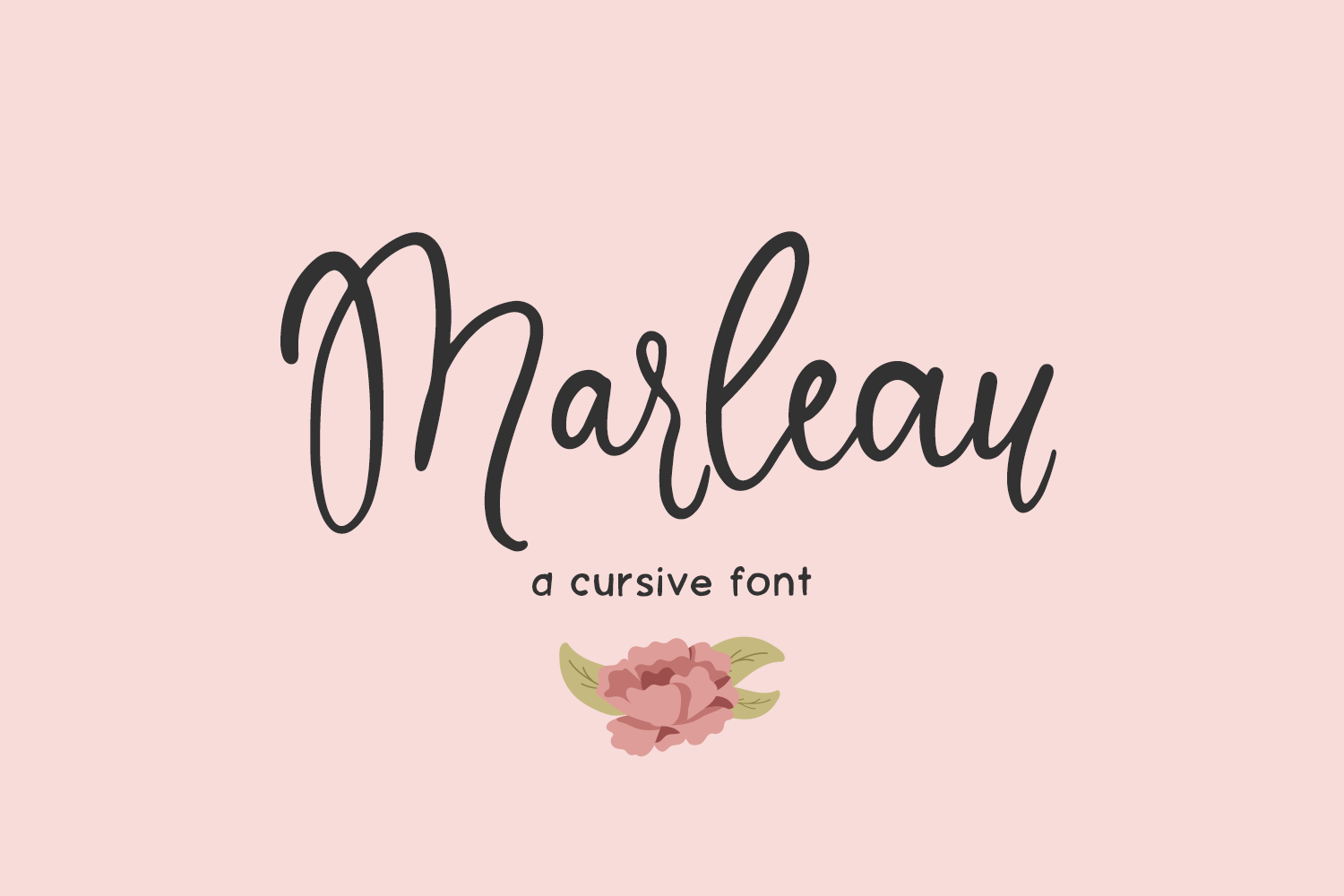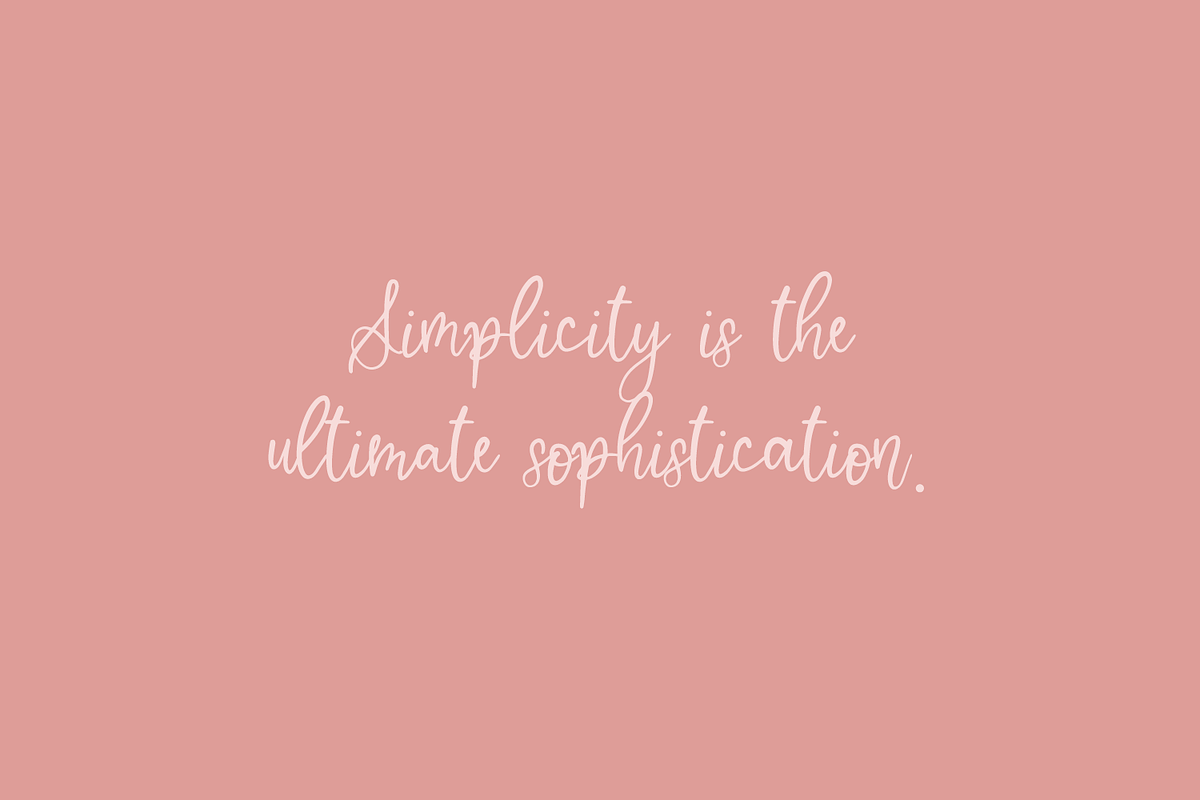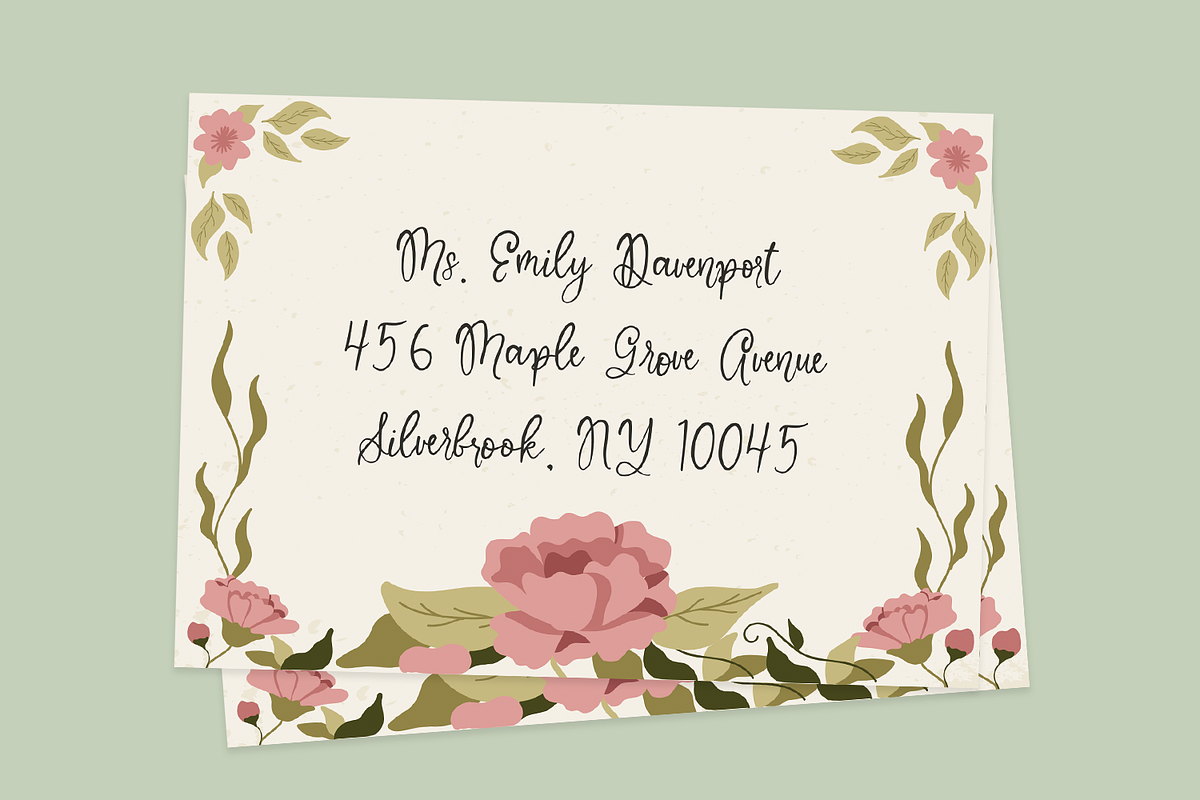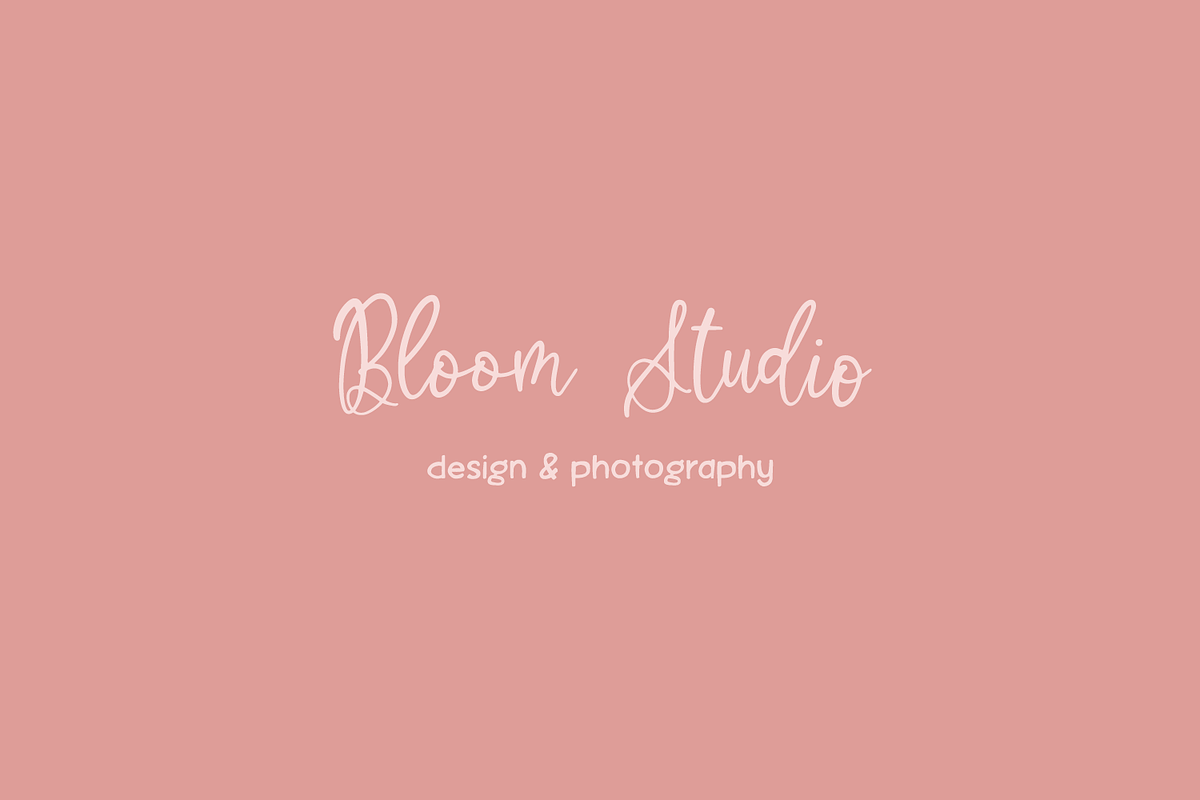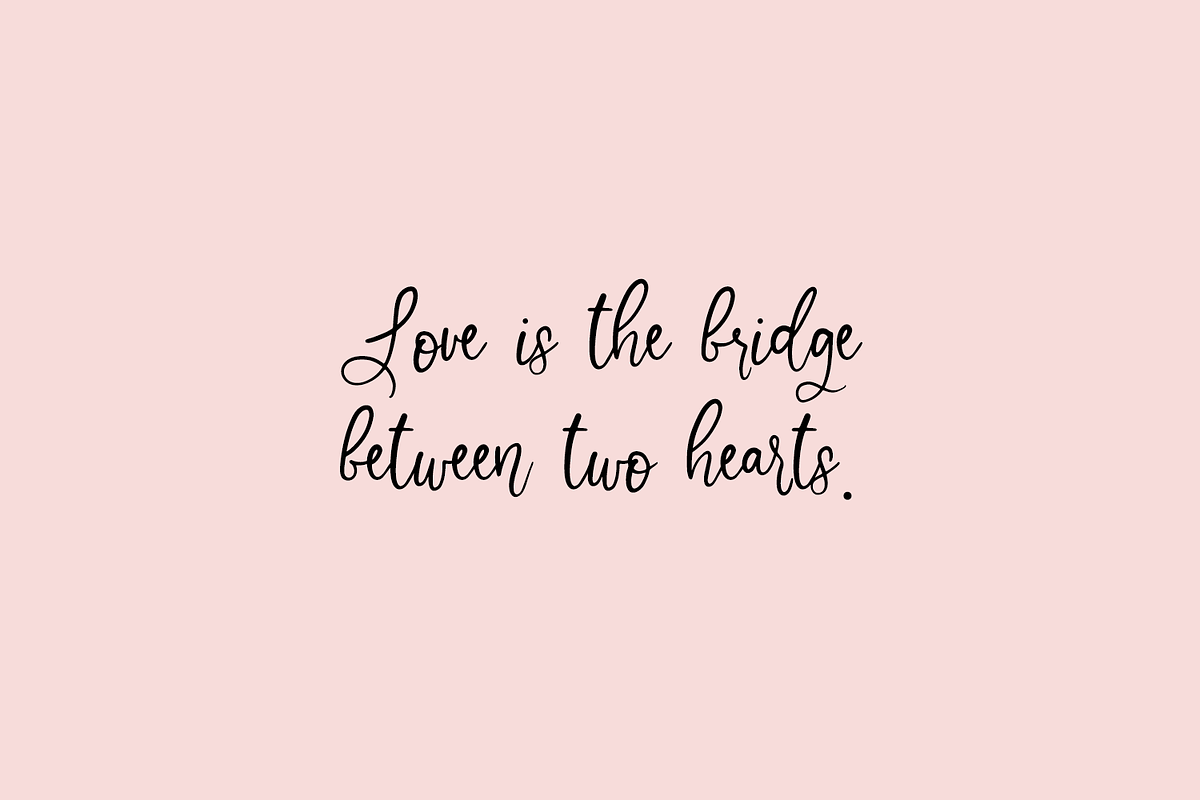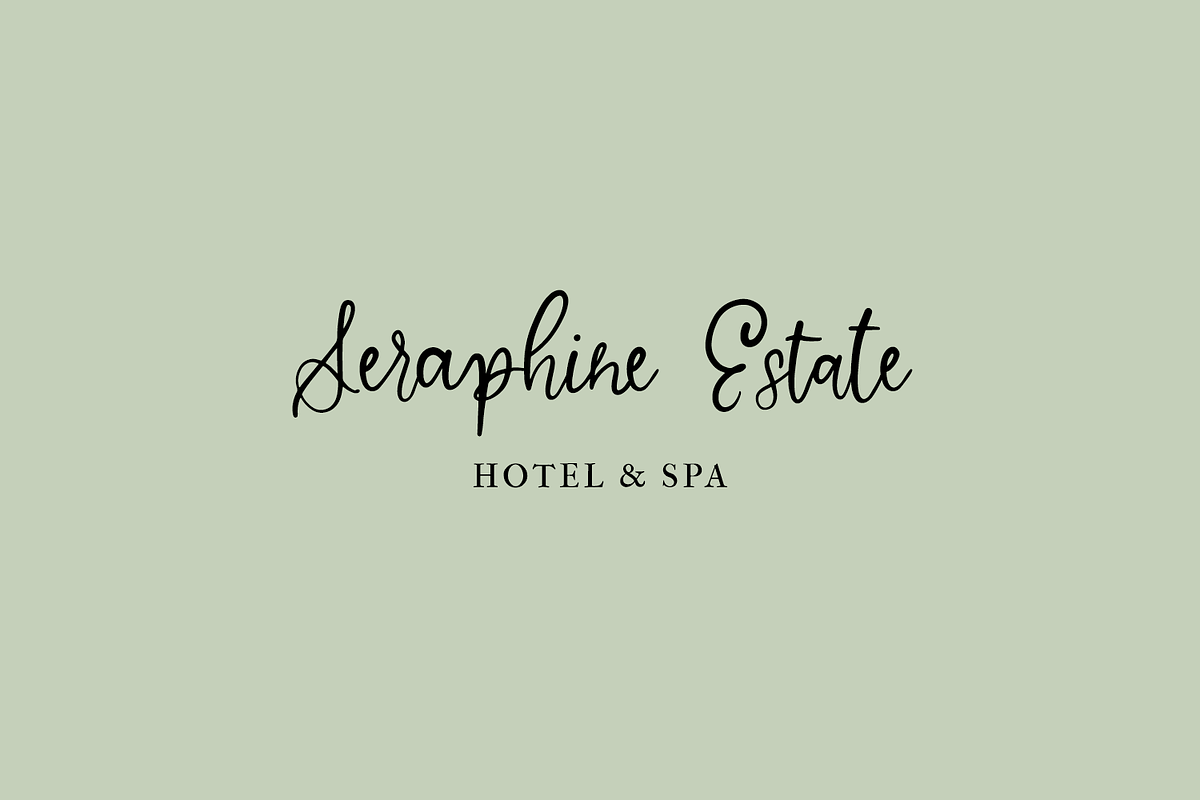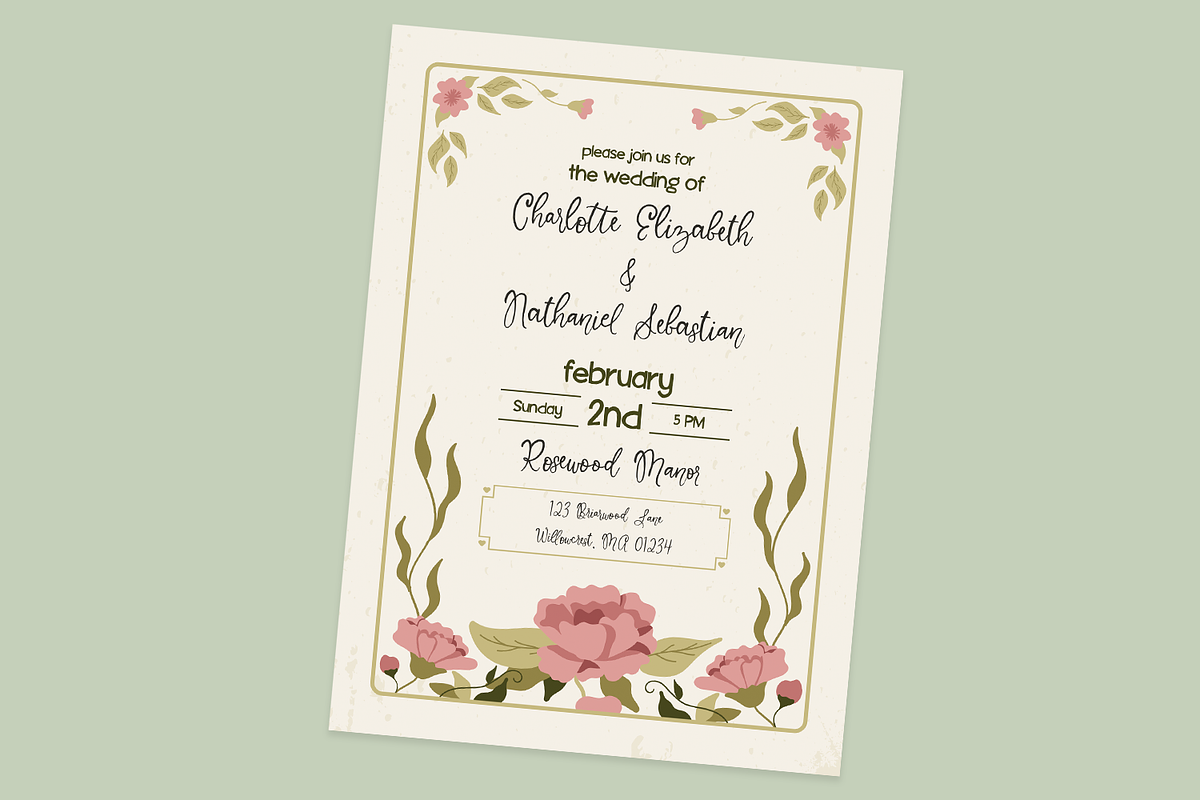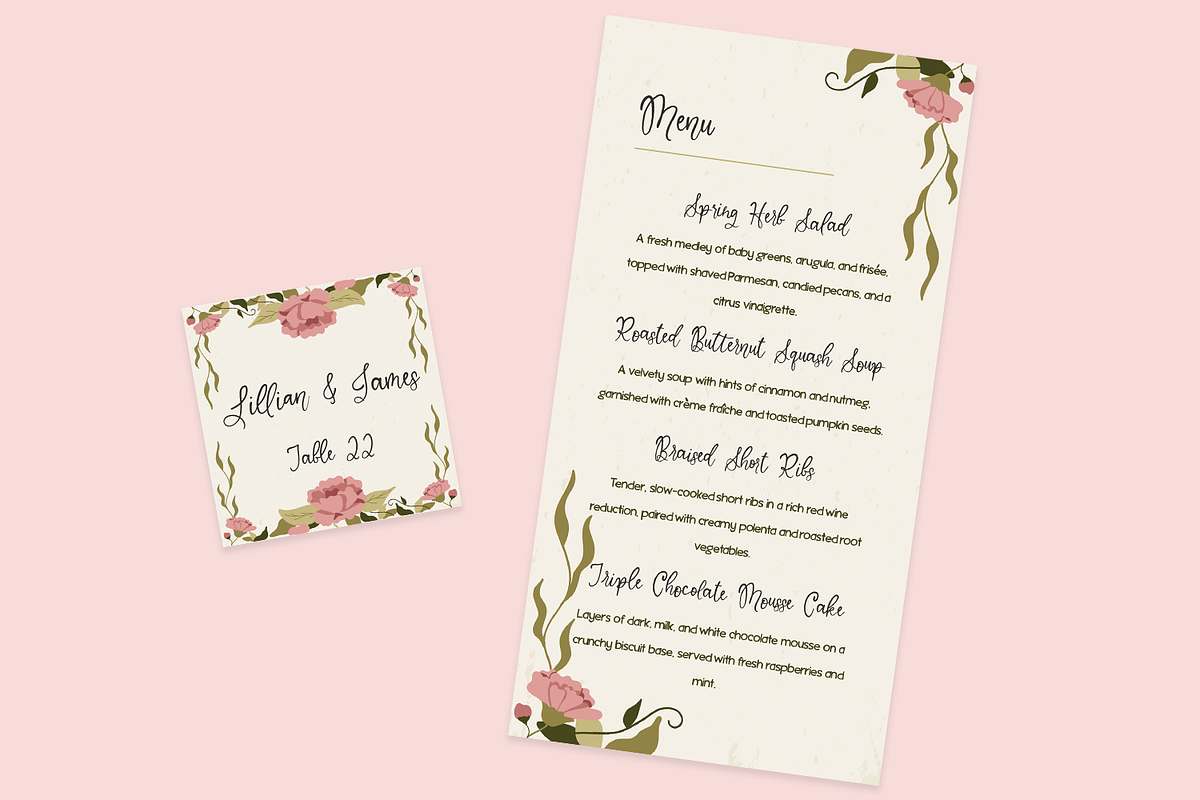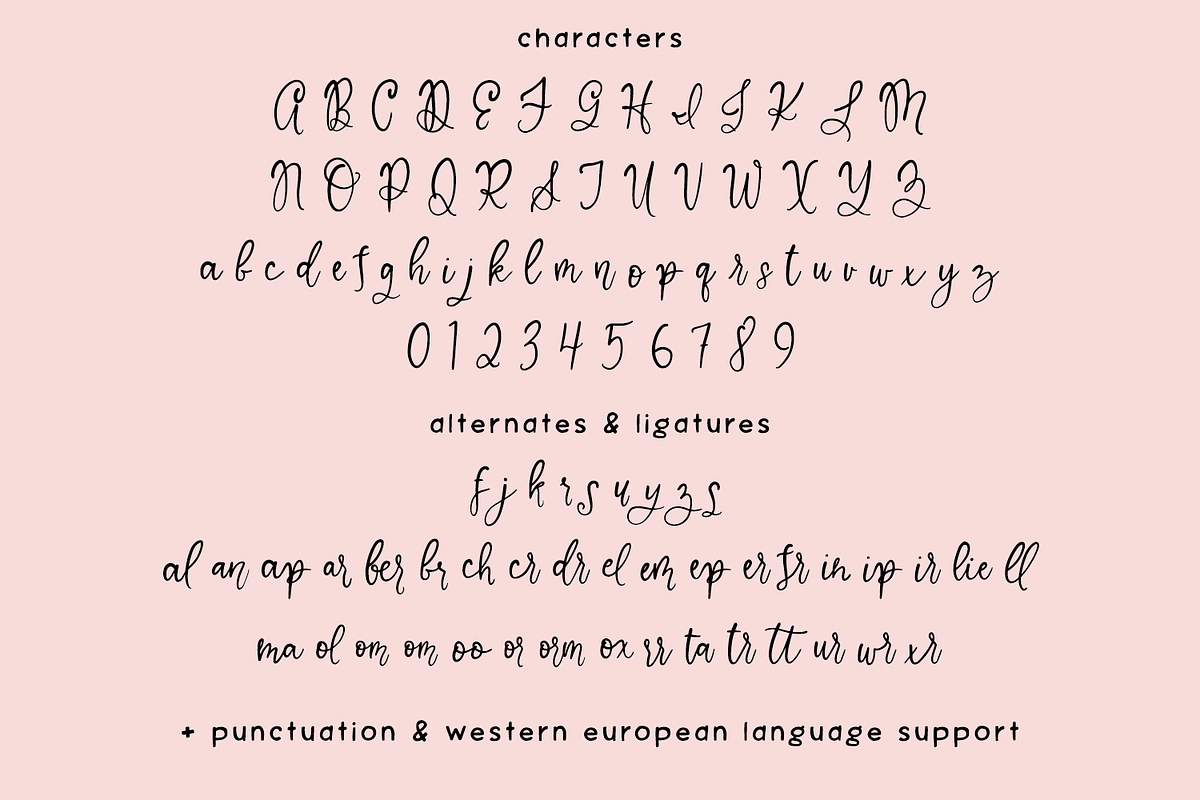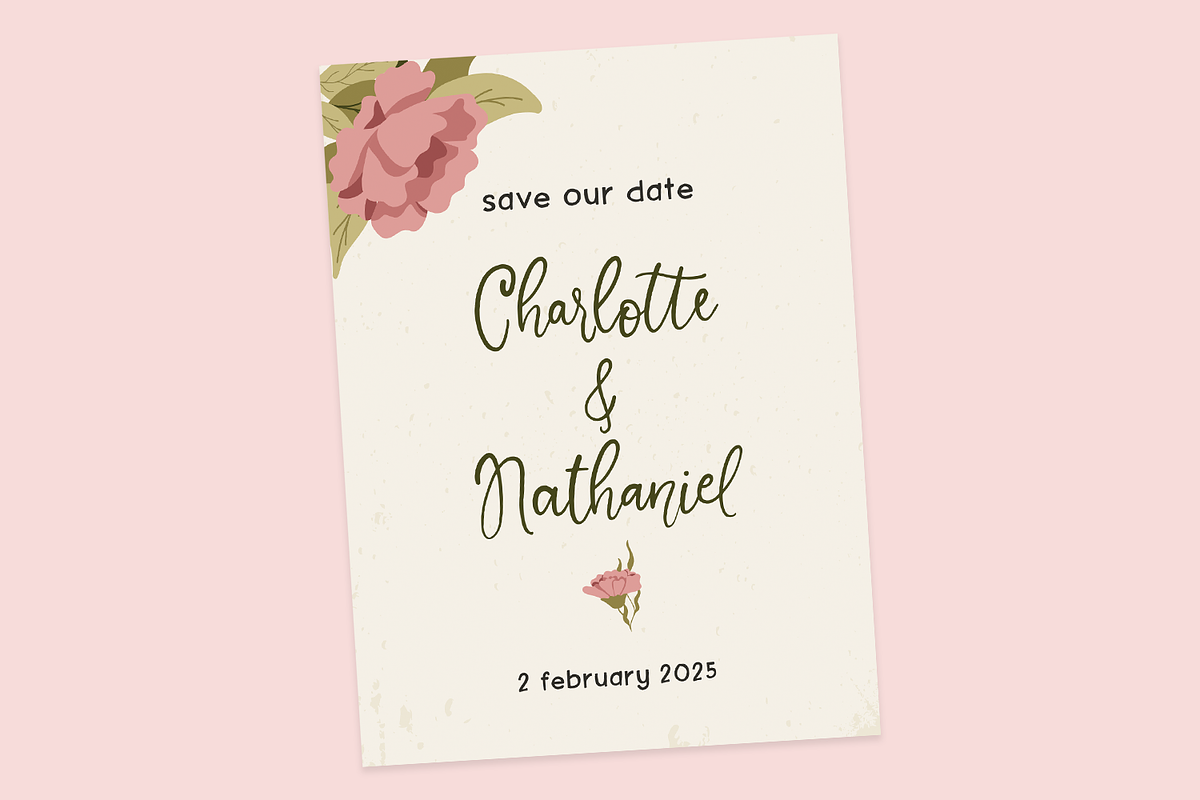
Marleau Script Font
Say hello to Marleau, a playful and whimsical cursive font. Marleau is charming and sweet, perfect for wedding invitations, greeting cards, social media posts, quote graphics, logos and branding, and more.
Marleau includes:
- upper + lowercase characters A-Z and a-z
- numbers 0-9
- punctuation
- 9 alternates - f, j, k, s (x2), u, y, z
- 33 ligatures - al, an, ap, ar, ber, br, ch, cr, dr, el, em, ep, er, fr, in, ip, ir, lie, ll, ma, ol, om, oo, or, orm, ox, rr, ta, tr, tt, ur, wr, xr
- Western European Language Support